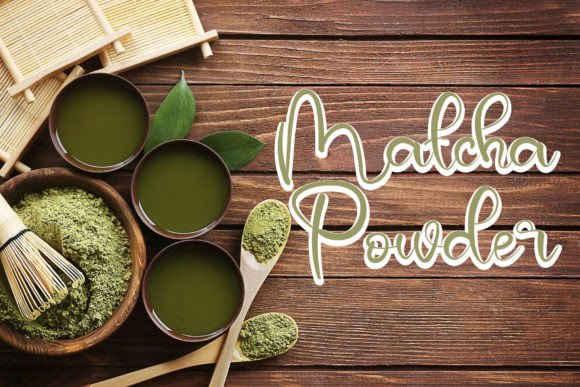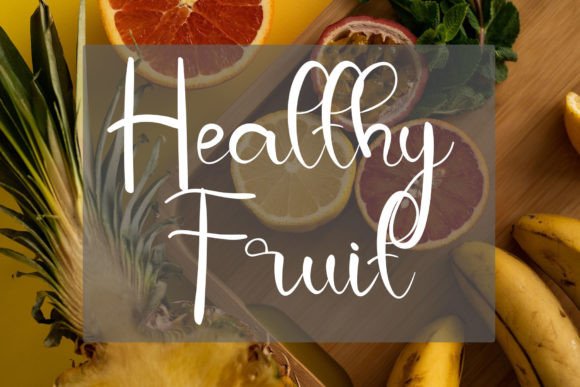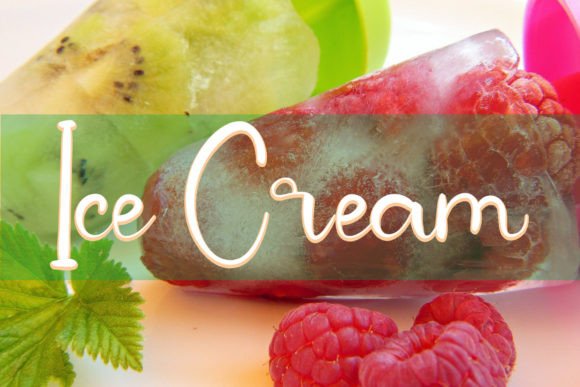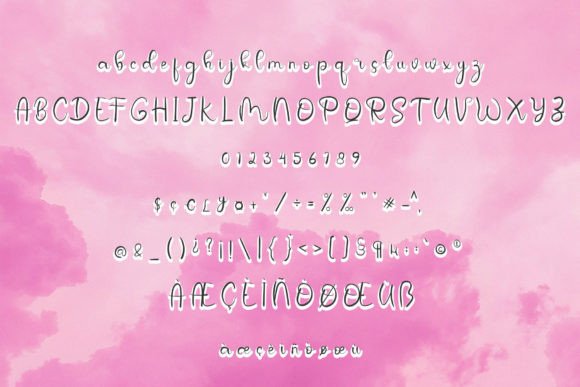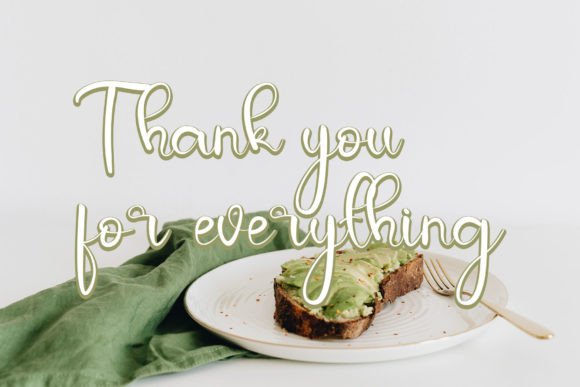
Introducing Avocado Font: The Sweet and Friendly Handwritten Font for Your Creative Projects
Are you looking for a font that can add a personal touch to your designs? Look no further than Avocado Font, a sweet and friendly handwritten font that’s perfect for creating beautiful wedding invitations, cards, and other craft projects. With its fresh and casual vibe, Avocado Font is ideal for designers and crafters who want to add a lovely touch to their work.
What Makes Avocado Font Special?
Avocado Font is a unique and charming handwritten font that’s designed to bring a sense of warmth and personality to your designs. Its sweet and friendly feel makes it perfect for a variety of creative projects, from wedding invitations and cards to scrapbooking and DIY crafts. The font’s casual and relaxed style also makes it ideal for use in digital and print materials, such as blog posts, social media graphics, and flyers.
Key Features of Avocado Font
- Sweet and Friendly Design: Avocado Font features a sweet and friendly design that’s perfect for creating beautiful and personalized designs.
- Handwritten Style: The font’s handwritten style gives it a unique and charming feel that’s perfect for adding a personal touch to your designs.
- Fresh and Casual Vibe: Avocado Font has a fresh and casual vibe that’s ideal for creating designs that are relaxed and informal.
- Perfect for Wedding Invitations and Cards: The font’s sweet and elegant design makes it perfect for use in wedding invitations, cards, and other special occasion designs.
How to Use Avocado Font in Your Designs
Avocado Font is a versatile font that can be used in a variety of creative projects. Here are a few ideas for using the font in your designs:
- Wedding Invitations: Use Avocado Font to create beautiful and personalized wedding invitations that set the tone for your special day.
- Cards and Stationery: The font’s sweet and friendly design makes it perfect for use in cards, stationery, and other paper crafts.
- Scrapbooking: Avocado Font is a great addition to any scrapbooking project, adding a personal touch to your photos and designs.
- Digital Designs: The font’s casual and relaxed style makes it ideal for use in digital designs, such as blog posts, social media graphics, and flyers.
Tips for Getting the Most Out of Avocado Font
Here are a few tips for getting the most out of Avocado Font in your designs:
- Experiment with Different Sizes and Colors: Avocado Font looks great in a variety of sizes and colors, so don’t be afraid to experiment and find the perfect combination for your design.
- Pair it with Other Fonts: Avocado Font pairs well with other fonts, so try combining it with a bold or serif font to add contrast and interest to your design.
- Use it in Combination with Images: The font’s sweet and friendly design makes it perfect for use in combination with images, such as photos or illustrations.
Avocado Font is a sweet and friendly handwritten font that’s perfect for designers and crafters who want to add a personal touch to their designs. With its fresh and casual vibe, Avocado Font is ideal for use in a variety of creative projects, from wedding invitations and cards to scrapbooking and digital designs. Whether you’re a professional designer or a DIY crafter, Avocado Font is a great addition to your font collection.